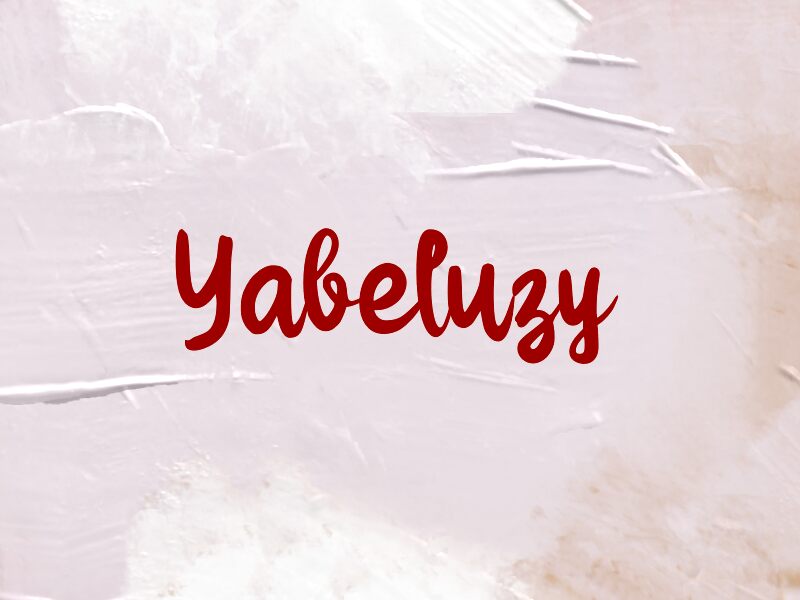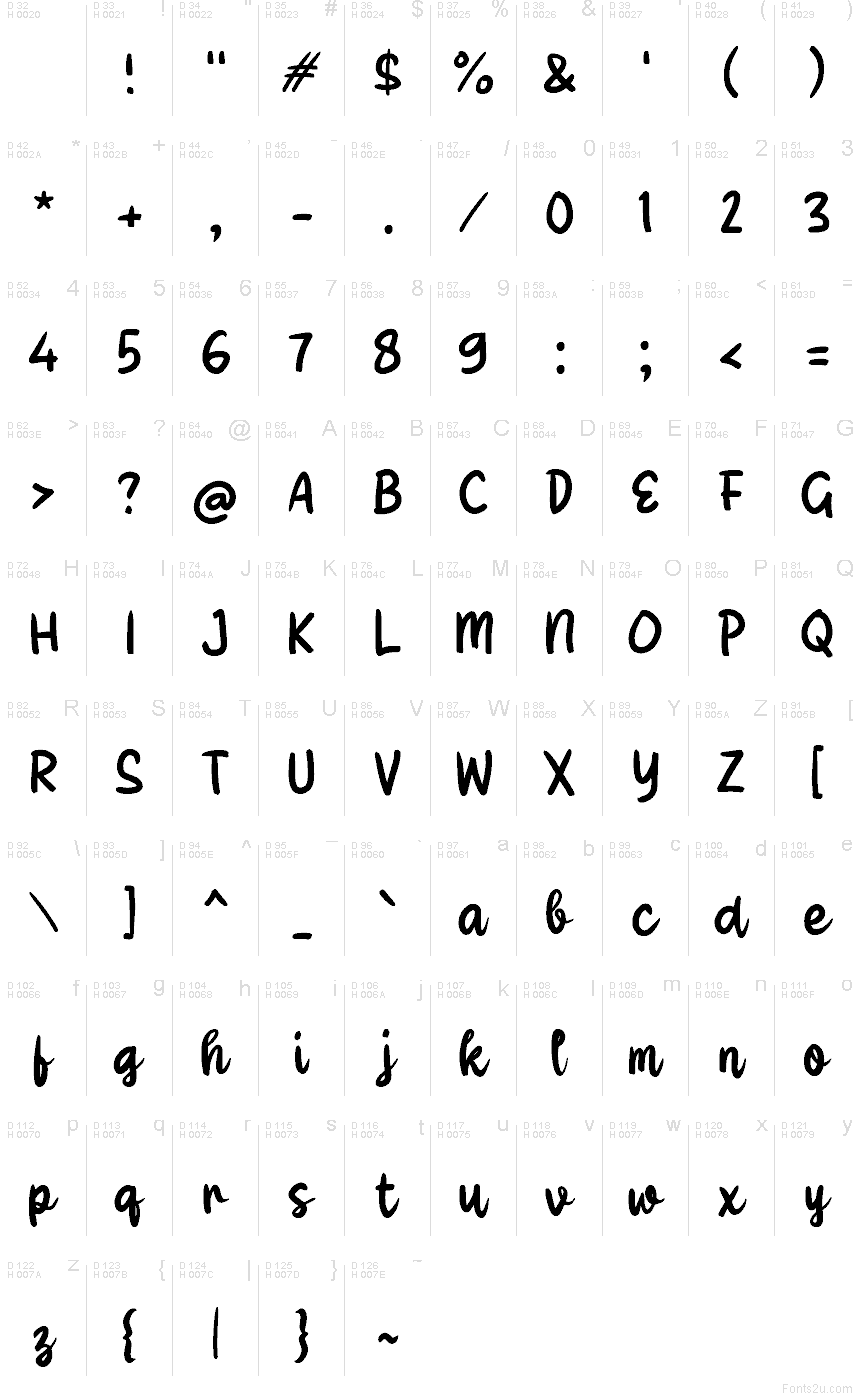
Yabeluzy
Yabeluzy font by wepfont.com is a free brush script typeface with inky, full-bodied strokes and a loose, handwritten rhythm. The letters swell and taper like real marker lines, with an easy bounce that feels friendly and a little playful, as if it were dashed off in one confident sweep. It brings a bold, tactile presence, great when you need words to look personal and a bit spontaneous without sacrificing clarity.
Using Yabeluzy, you can craft expressive logo marks, packaging, social media posts, greeting cards, invitations, product labels, and quote posters that feel warm and handmade. This free font shines when set large, where its textured curves and chunky forms can really breathe. For a simple pairing, combine Yabeluzy for headlines with a clean sans serif for small supporting text to keep everything readable and balanced.